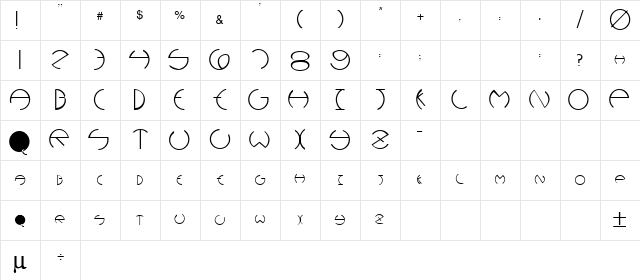
Rounders Regular
Complete Rounders Regular glyph index. Displaying only characters natively supported by Rounders Regular font.
Design Context for Rounders
Rounders softens its letterforms with rounded terminals, giving it an approachable, friendly quality that works well in consumer-facing and digital contexts.
Font Pairing: Pairs well with a rounded or humanist sans for body copy, maintaining the friendly tone without relying on Rounders to carry extended reading.
Pro Tip: Use Rounders for UI elements, app interfaces, and anywhere a friendly, approachable tone needs to be maintained without sacrificing clarity.